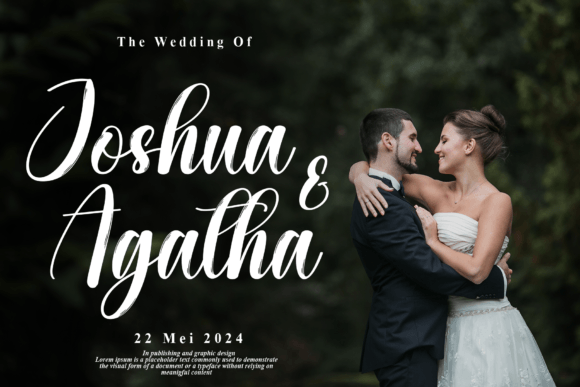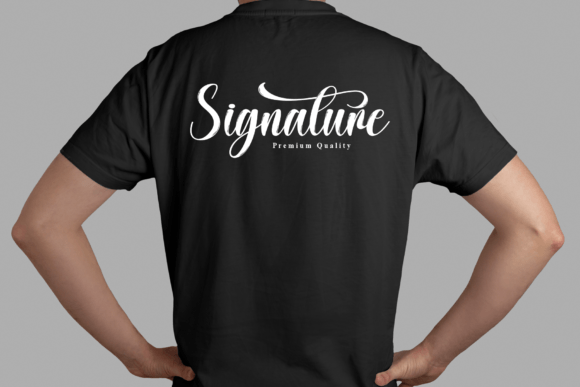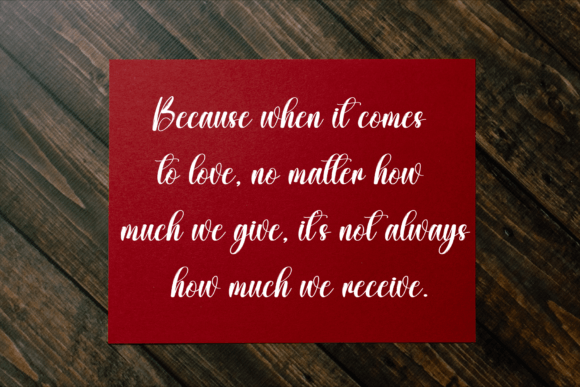
Introduction to Rooftop Garden Font
As I sat at my desk, staring at a blank design canvas, I knew exactly what I needed to bring my creative project to life – a touch of elegance and sophistication. And that’s when I stumbled upon the stunning Rooftop Garden Font. Its beautiful, handwritten script style instantly captured my attention, and I knew I had to learn more about this incredible design resource.
As a designer, I’ve always been on the lookout for high-quality fonts that can elevate my designs and give them a unique, personal touch. The Rooftop Garden Font is exactly that – a versatile and stylish script font that can be used on a variety of projects, from wedding invitations to business cards.
Key Features of Rooftop Garden Font
- Unique and modern design, perfect for creative projects and design resources.
- Perfect for use in logos, branding, packaging, and other creative projects that require a unique and eye-catching design.
Honest Review: Rooftop Garden Font
I recently had the chance to dive into the Rooftop Garden Font, and I must say it’s a hidden gem for designers. As a go-to design resource, I’m always on the lookout for unique and high-quality fonts to elevate my creative projects.
The Rooftop Garden Font does just that. Its transparent background and delicate floral details make it perfect for adding a touch of whimsy to any design. The font is incredibly versatile, and I love how it can be used for both digital and print projects. ✨
- Unique and delicate design
- Perfect for creative projects, such as wedding invitations or garden-themed designs
- May not be suitable for bold or heavy text
- Lack of bold and italic font styles
- Not ideal for small text sizes
- Pair the Rooftop Garden Font with floral illustrations or watercolor elements to create a romantic and whimsical look.
Frequently Asked Questions About Rooftop Garden Font
Q: Is the Rooftop Garden Font a design resource or a standalone font?
The Rooftop Garden Font is a design resource that includes a set of stylish and modern characters, making it a valuable addition to your design library. You can use it as a standalone font or combine it with other design resources to create unique and creative projects.
Overall, I’m impressed with the Rooftop Garden Font, and I’d highly recommend it to designers looking for a unique and high-quality design resource. With a little creativity, this font can add a touch of magic to any project.
Creative Projects with Rooftop Garden Font
Project 1: Modern Wedding Invitation Design
The Rooftop Garden Font is perfect for creating elegant wedding invitations. This design resource features a high-quality, transparent background that makes it easy to customize and add to your invitation design.
Project 2: Personalized Photo Album Design
The Rooftop Garden Font is ideal for creating a personalized photo album design. Its high-quality, transparent background makes it easy to add photos and other design elements to the page.